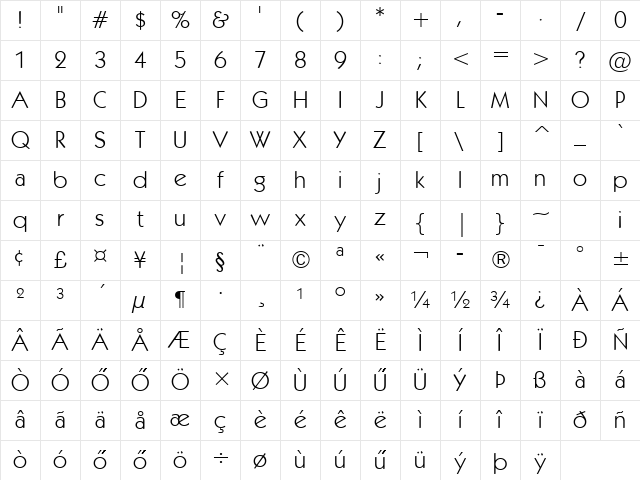
H_KABWB Regular
Design Context for H_KABWB
H_KABWB is a composed and adaptable typeface that performs quietly and consistently across a wide range of design contexts.
Pro Tip: Use H_KABWB in both headline and body roles to test its range before committing to a single application.